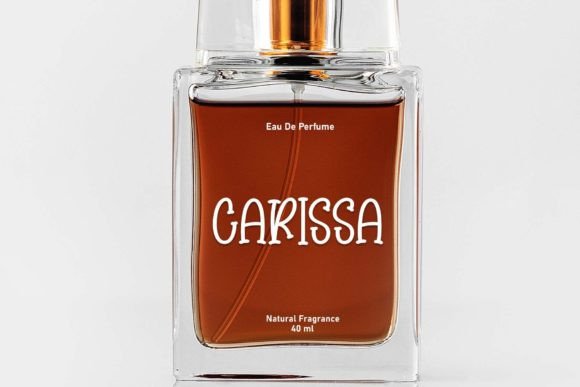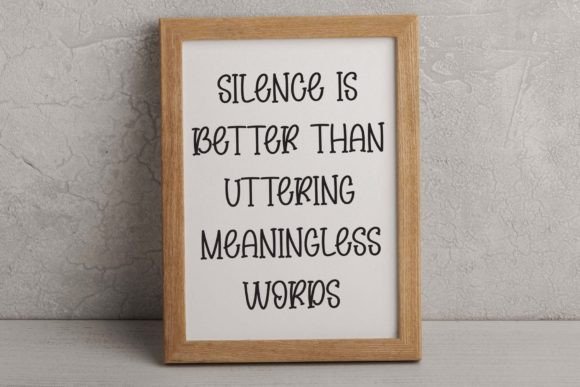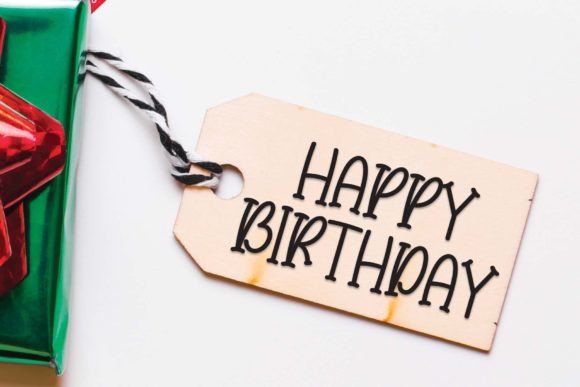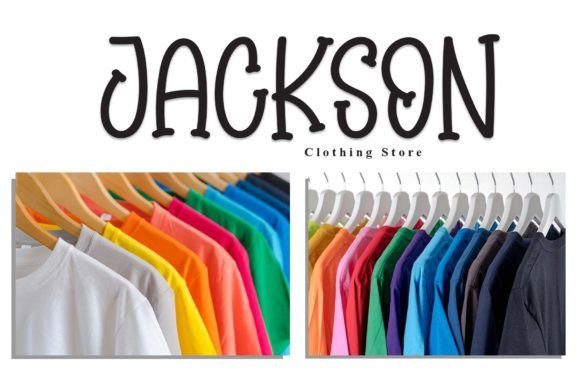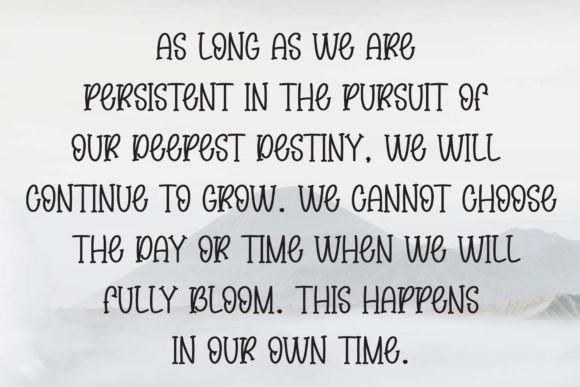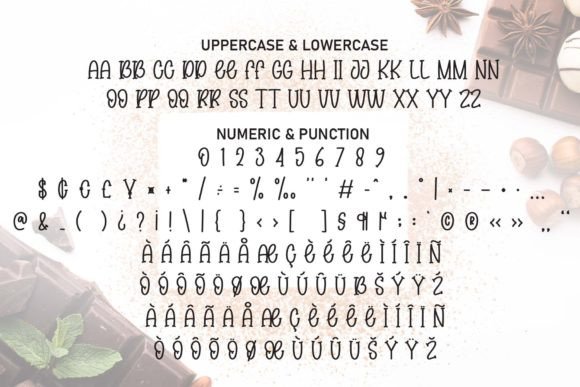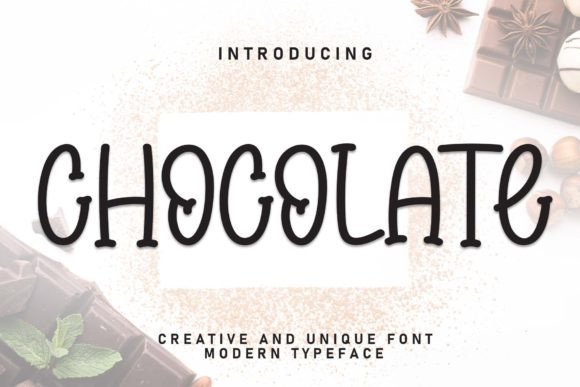
Introducing Chocolate Font: The Sweetest Addition to Your Design Collection
Are you tired of using the same old fonts in your designs? Look no further! Chocolate Font is a sweet and friendly handwritten font that’s sure to add a fun touch to any project. This cute and versatile font is ideal for writing wedding invitations, cards, or any other design that might need a personal and playful twist.
What Makes Chocolate Font So Special?
Chocolate Font is a unique and charming handwritten font that’s perfect for designers and crafters who want to add a touch of whimsy to their work. Here are just a few reasons why Chocolate Font stands out from the crowd:
- Handwritten with love: Chocolate Font is a carefully crafted handwritten font that exudes warmth and personality. Its sweet and friendly vibe makes it perfect for designs that require a personal touch.
- Versatile and adaptable: Whether you’re designing a wedding invitation, a greeting card, or a social media post, Chocolate Font is the perfect choice. Its versatility ensures that it will fit right in with any design style or theme.
- Cute and playful: Let’s face it – Chocolate Font is just plain cute! Its playful and fun vibe is sure to bring a smile to anyone’s face, making it perfect for designs that need to be lighthearted and engaging.
Wedding invitations and cards are a great way to showcase Chocolate Font’s unique charm. The font’s sweet and romantic vibe makes it perfect for:
- Wedding invitations: Make your wedding invitation stand out with Chocolate Font’s elegant and playful script.
- Save-the-date cards: Announce your special day with a cute and personalized save-the-date card featuring Chocolate Font.
- Thank-you cards: Express your gratitude with a heartfelt thank-you card written in Chocolate Font’s sweet and friendly script.
Tips for Using Chocolate Font in Your Designs
Now that you’ve fallen in love with Chocolate Font, here are some tips to help you make the most of this amazing font:
- Pair it with complementary fonts: Combine Chocolate Font with other fonts that complement its playful and whimsical vibe. Some great options include serif fonts, sans-serif fonts, or other script fonts.
- Use it for headings and titles: Chocolate Font is perfect for headings and titles, where its playful and eye-catching vibe can really shine.
- Add some personality with colors and textures: Don’t be afraid to experiment with different colors and textures to add some extra personality to your designs. Chocolate Font looks great with bright and bold colors, as well as soft pastels.
Where to Use Chocolate Font
Chocolate Font is a versatile font that can be used in a variety of design projects, including:
- Wedding invitations and cards: As mentioned earlier, Chocolate Font is perfect for wedding invitations, save-the-date cards, and thank-you cards.
- Greeting cards and stationery: Add a personal touch to your greeting cards and stationery with Chocolate Font’s sweet and friendly script.
- Social media graphics: Use Chocolate Font to add a playful and eye-catching touch to your social media graphics, such as Facebook posts, Instagram stories, and Twitter headers.
- Branding and packaging: Chocolate Font can also be used for branding and packaging design, where its unique and playful vibe can help your product stand out.
In conclusion, Chocolate Font is a sweet and friendly handwritten font that’s perfect for designers and crafters who want to add a touch of whimsy to their work. Its versatility, playfulness, and charm make it ideal for a wide range of design projects, from wedding invitations and cards to social media graphics and branding. So why not give Chocolate Font a try and see how it can sweeten up your designs?